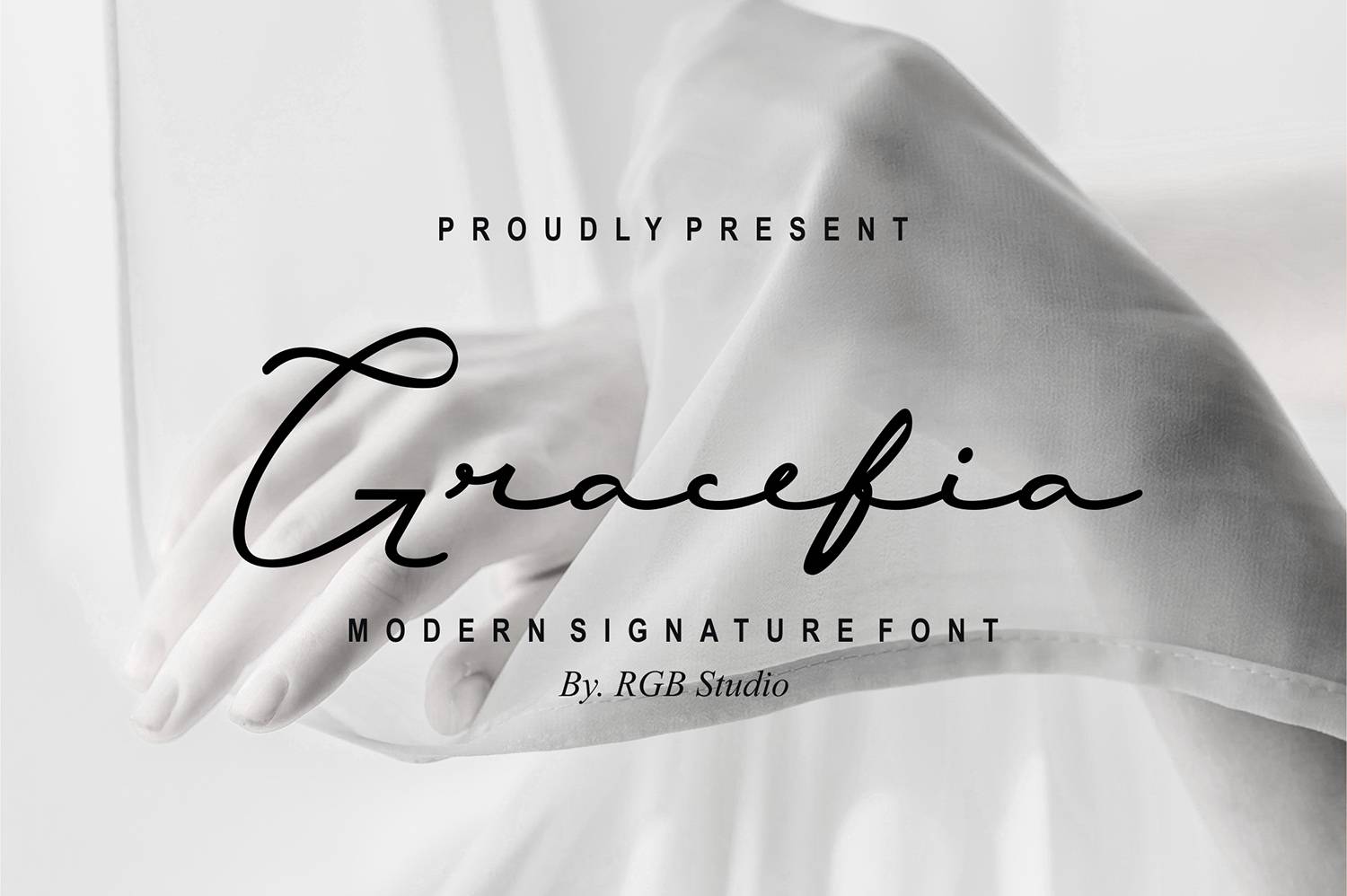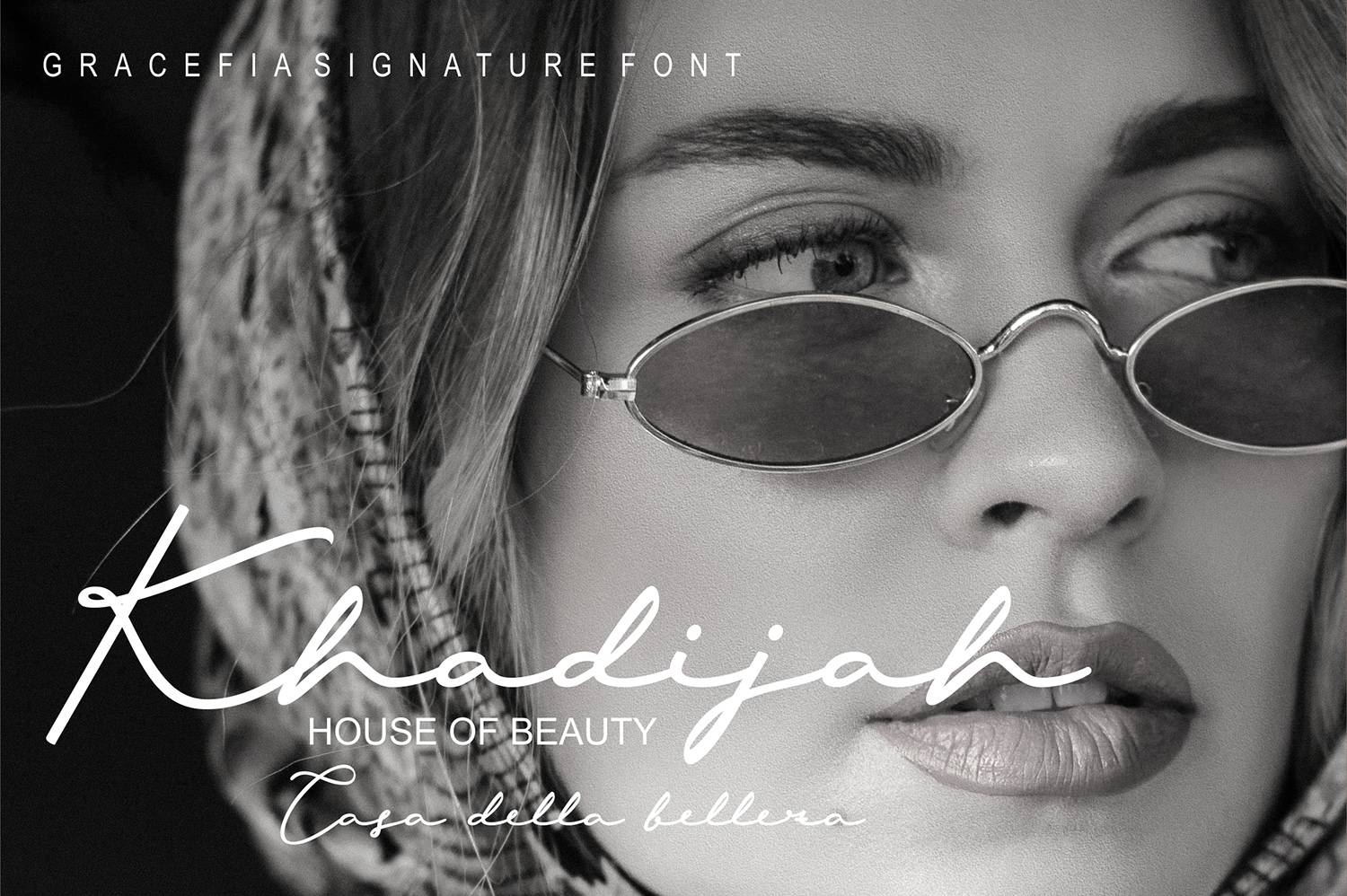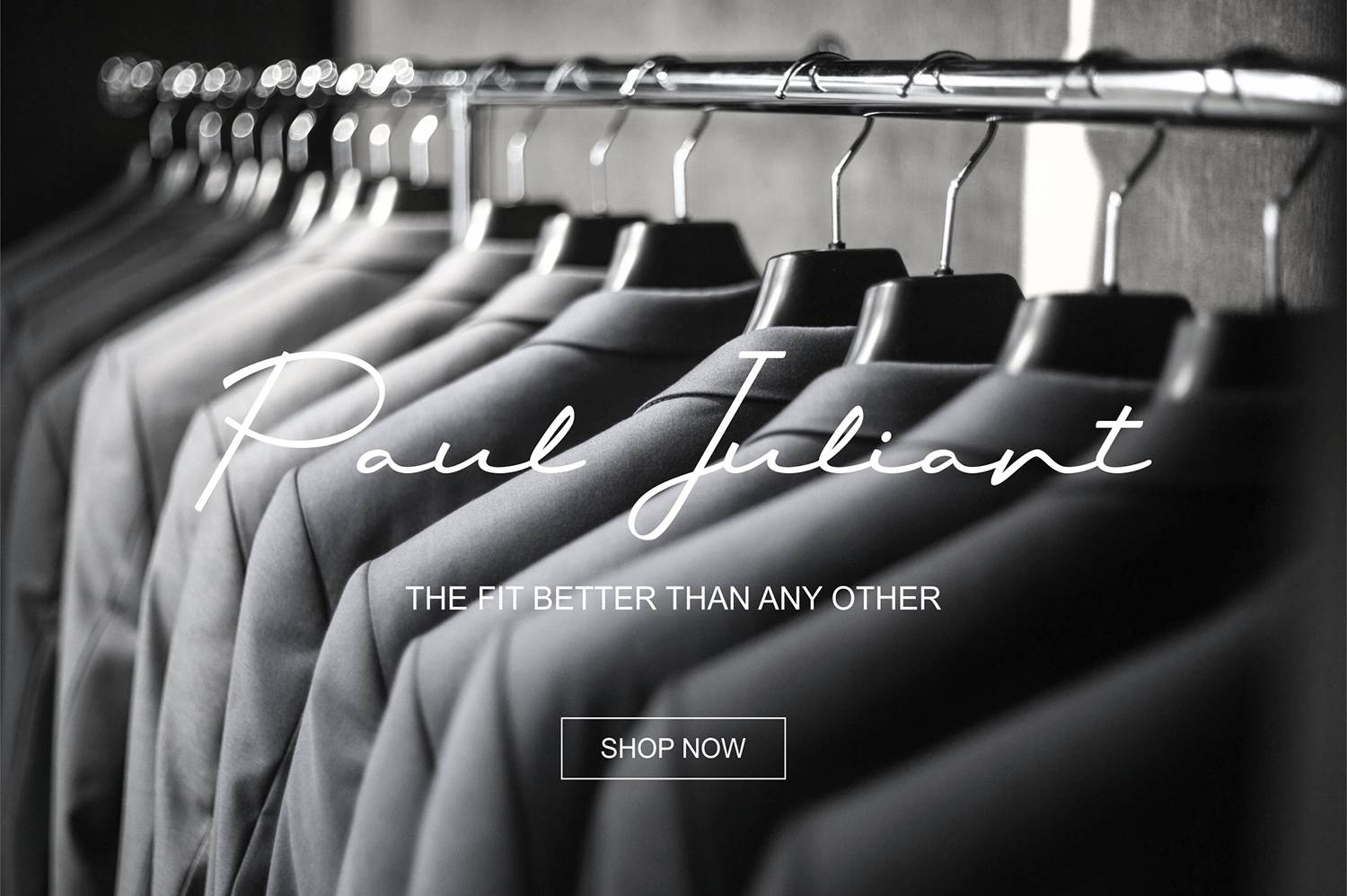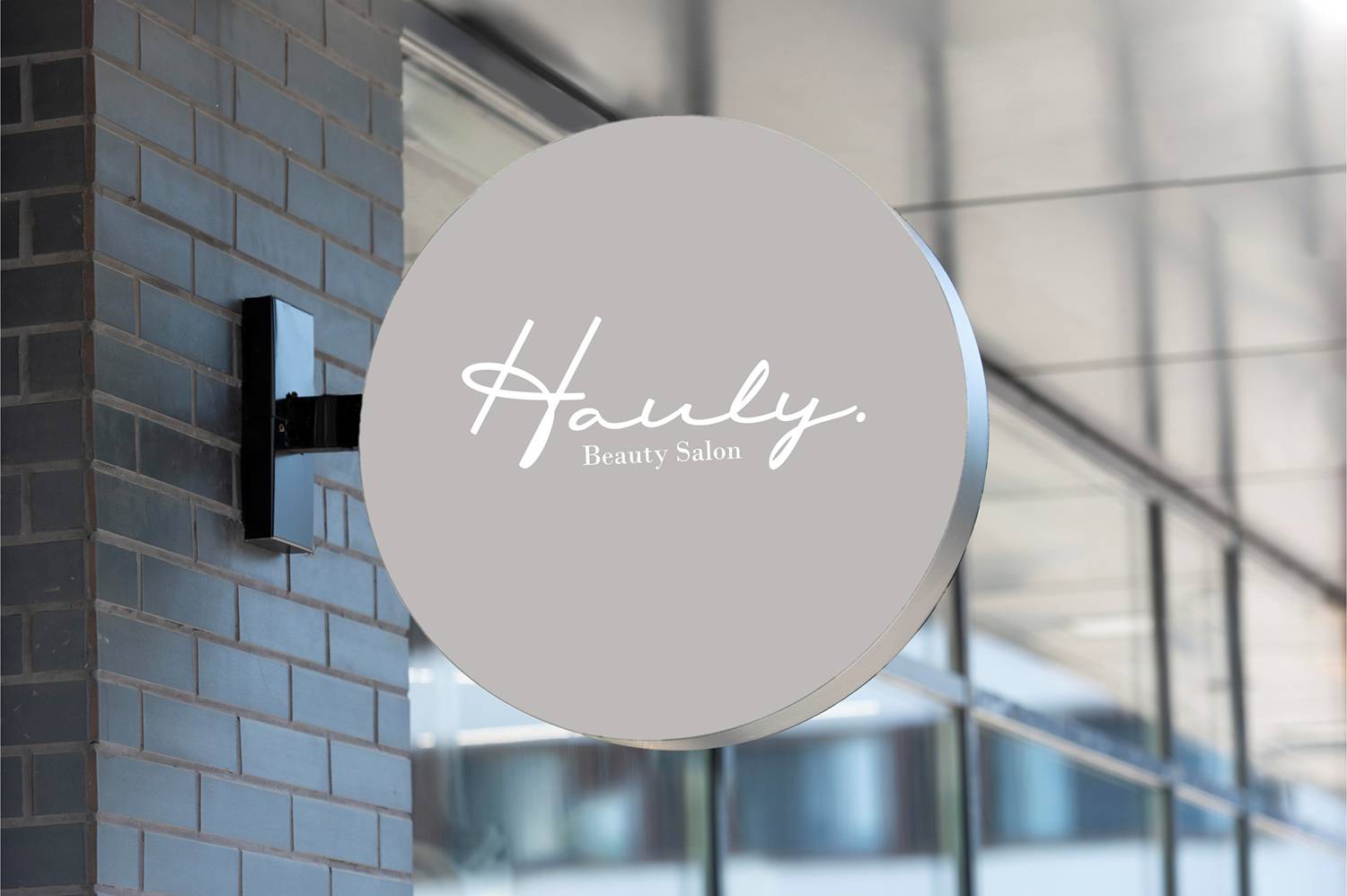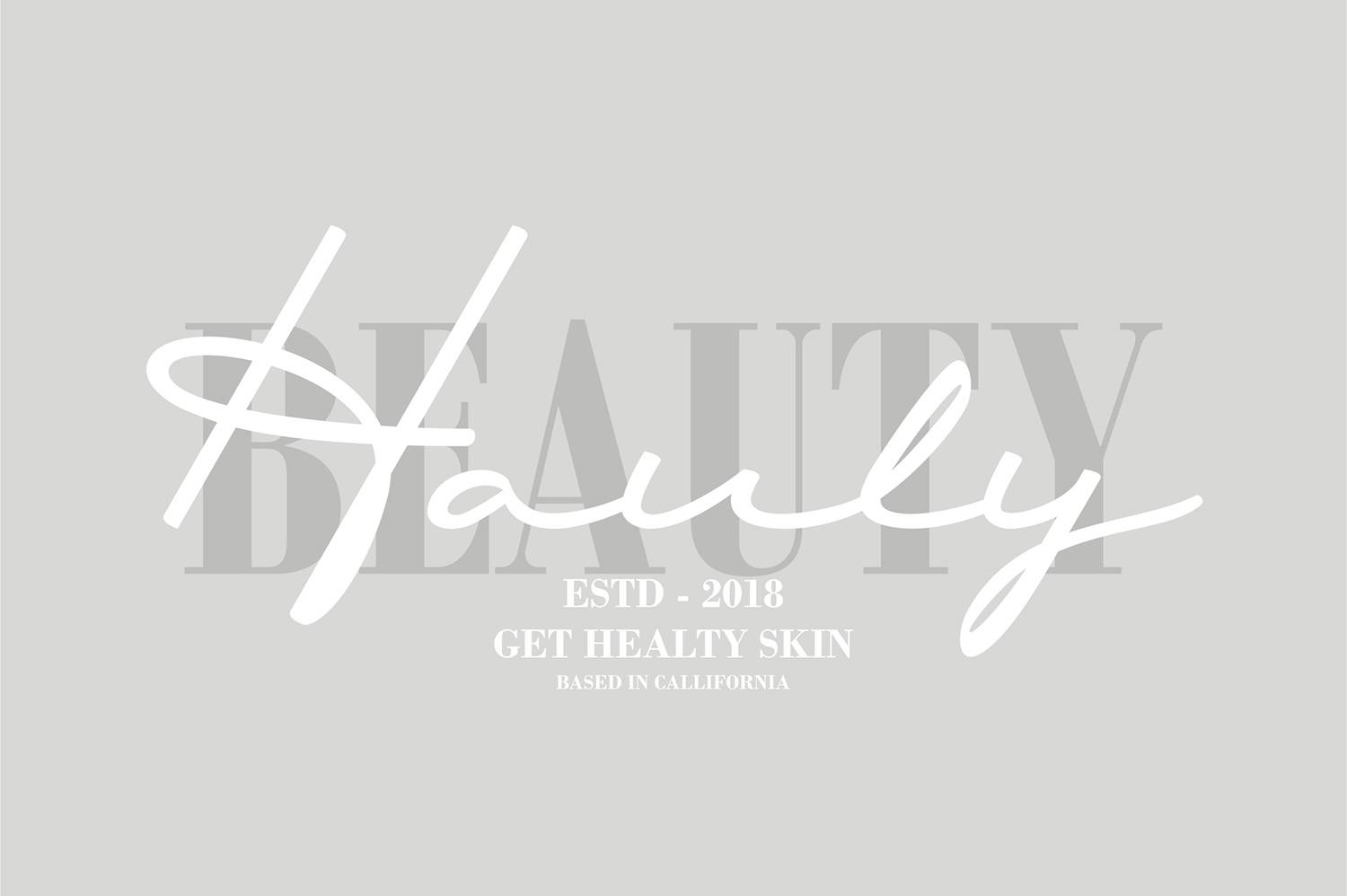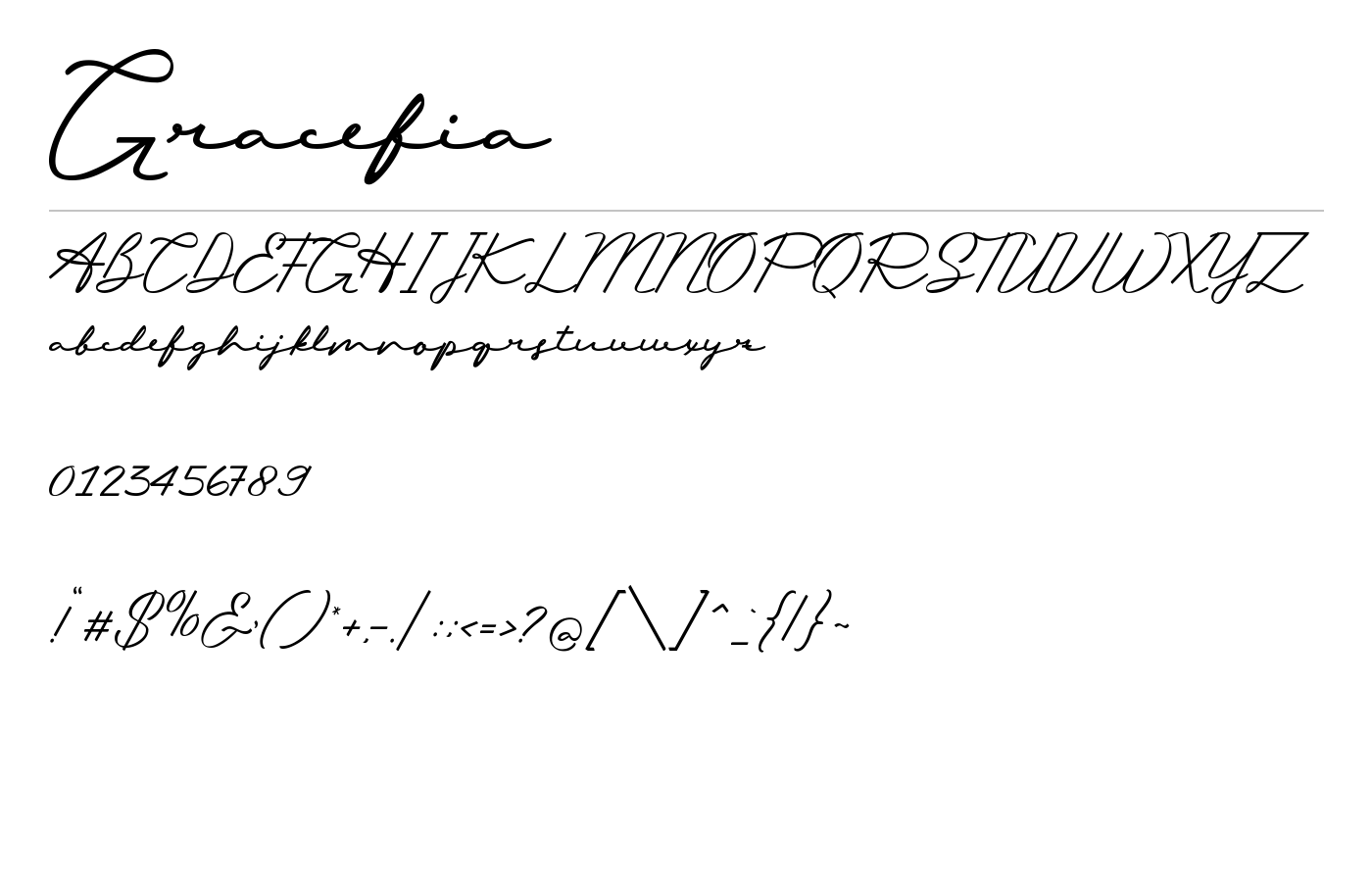
Gracefia is a delicate, elegant script font characterized by its thin, flowing strokes and graceful letterforms that mimic natural handwriting. Its light weight and slender, slightly slanted characters give it a refined and sophisticated personality, perfect for invitations, fashion branding, or any design seeking a touch of handwritten elegance. This font works beautifully in logos, headlines, and decorative text where a soft, personal, and stylish look is desired.
Gracefia Font
About Gracefia Font
| Font family | Gracefia Font |
| Designer | MOH. MA'IN |